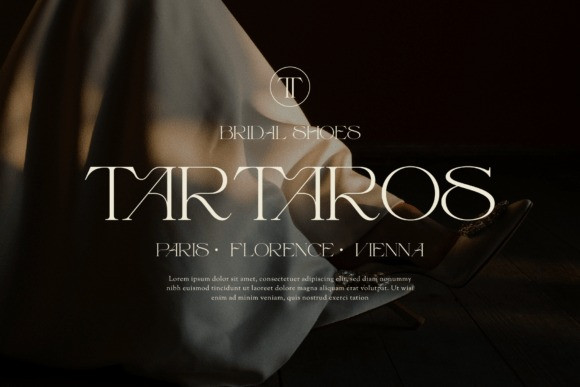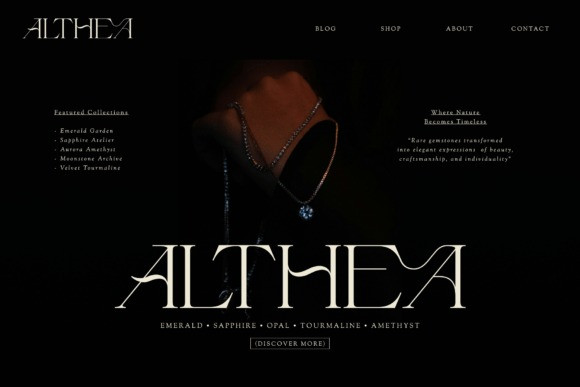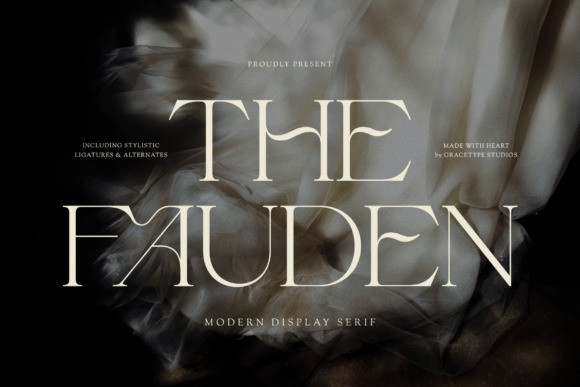
Fauden Font
Fauden Font a breathtaking display serif typeface that captures a “stately-and-sculpted” soul. This font features striking, high-contrast uppercase letterforms uniquely characterized by rhythmic, sharp triangular serifs, deep fluid joints, and dramatic interlocking ligatures that bridge the gap between vintage high-fashion editorial layouts and modern couture branding. With its medium structural weight, cinematic styling, and beautiful collection of architectural alternates, The Fauden is the premier choice for independent jewelry identities, boutique hotel logos, premium fragrance packaging, and high-impact “authoritative-and-antique” social media headers.